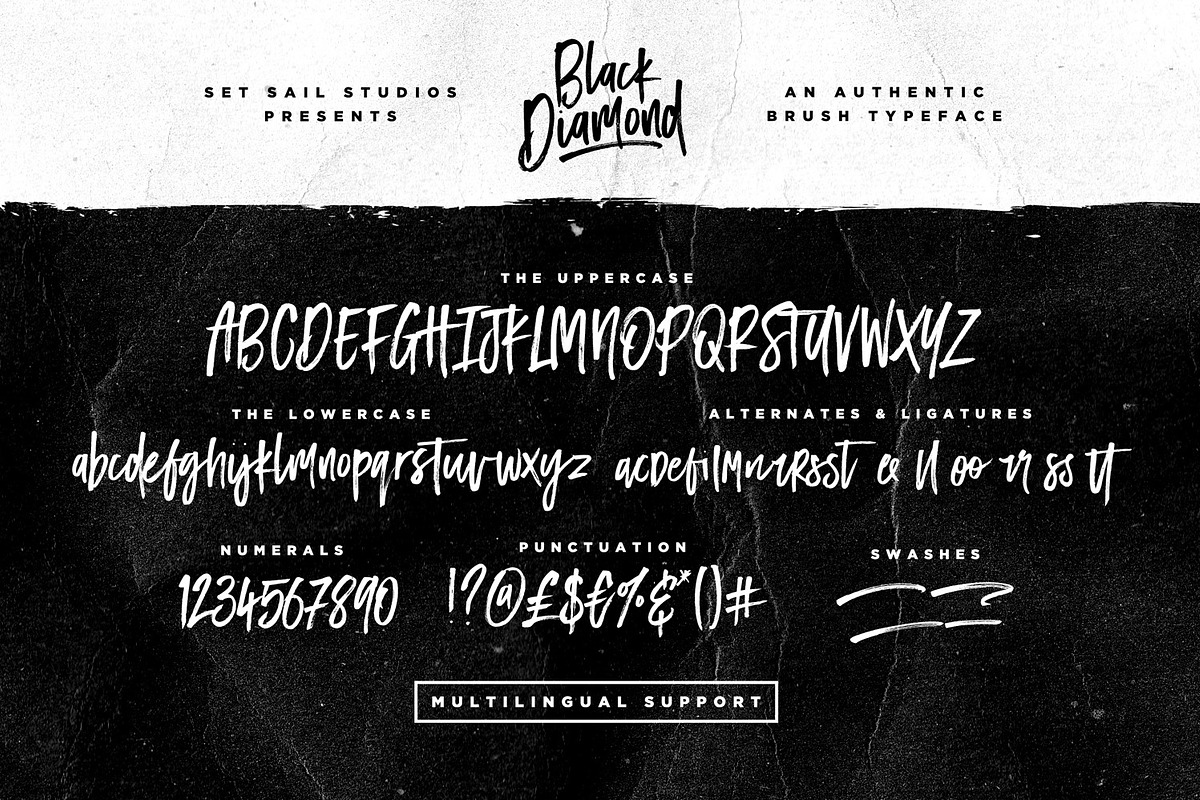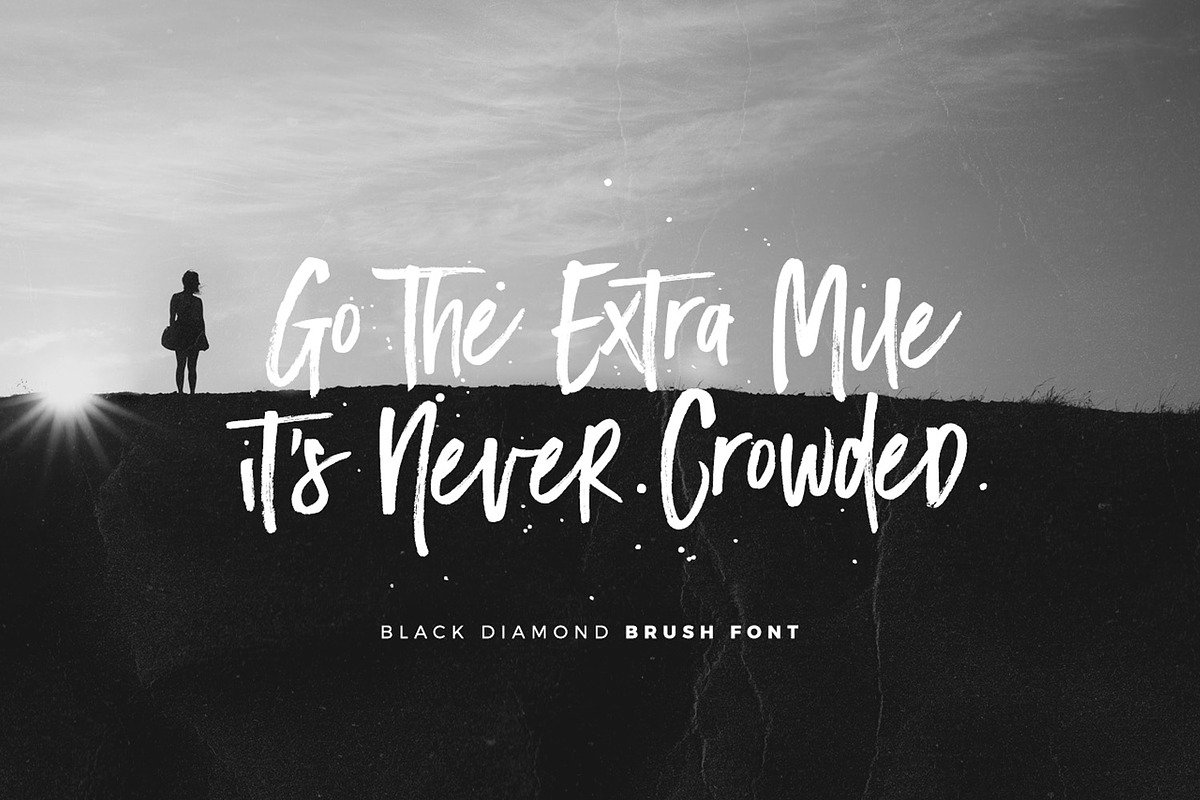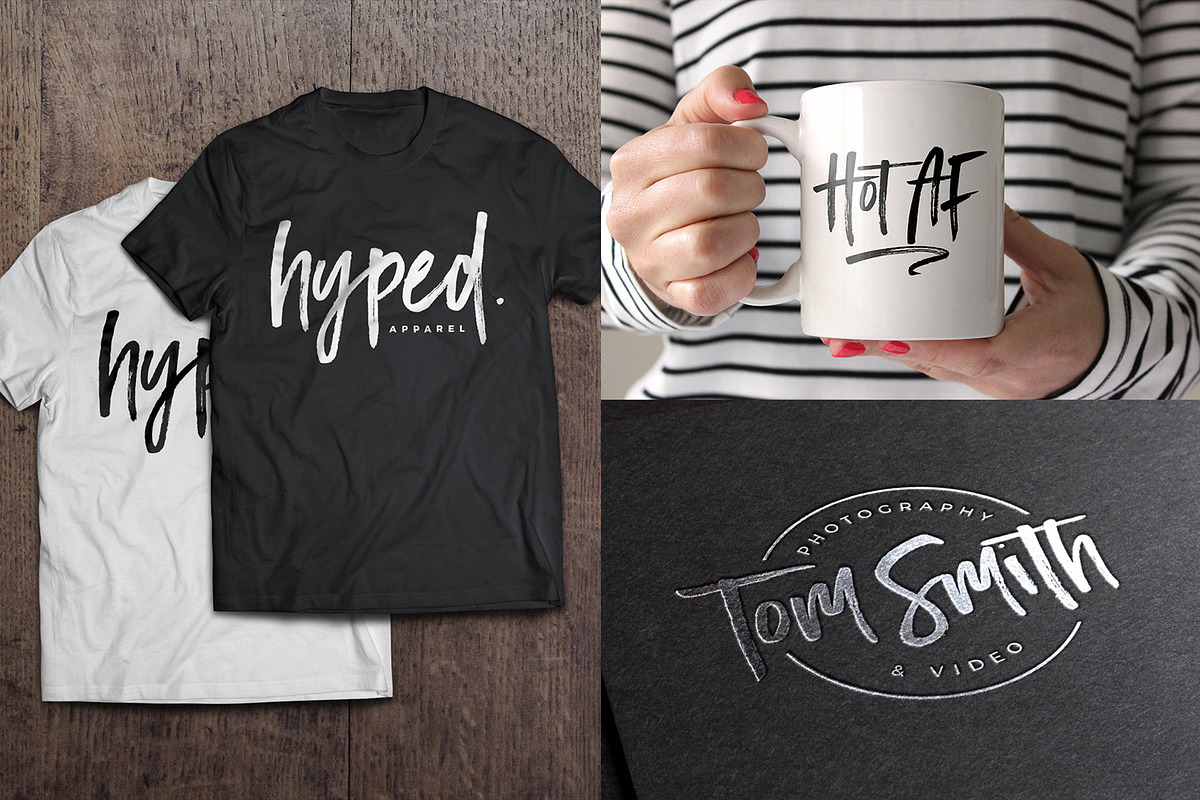
Black Diamond Brush Font
Black Diamond Brush Font by Sam Parrett is a font selected for branding, posters, packaging, typography.
- It contains a full set of lower & uppercase letters, a large range of punctuation, numerals, and multilingual support.
- The font also contains several ligatures and stylistic alternates for those who have opentype capable software (e.g.
- • September 2017 Black Diamond has now been updated to support Greek & Cyrillic alphabets, giving a much wider range of language support, in
- Lastly you can add some finishing touches to your work with the added bonus extras; Just type out any of the square-bracket characters { } [
Black Diamond Brush Font by Sam Parrett fits naturally into Branding, posters, packaging, typography.